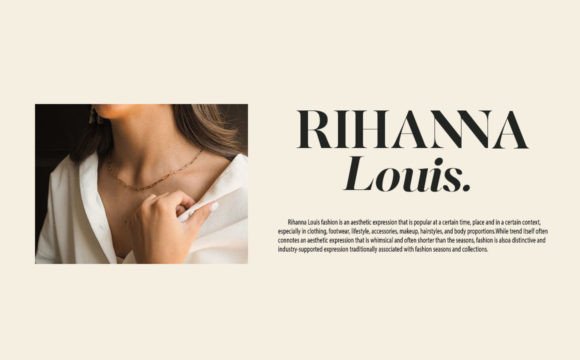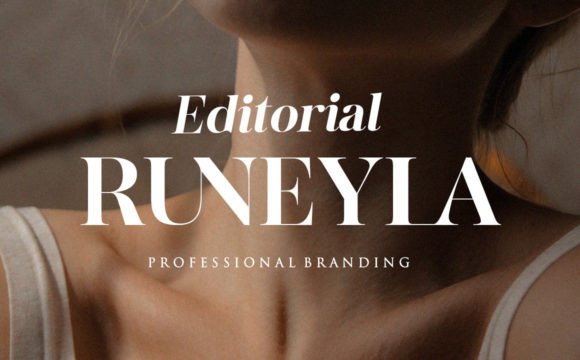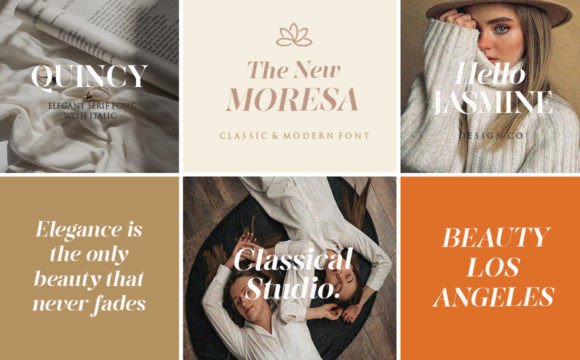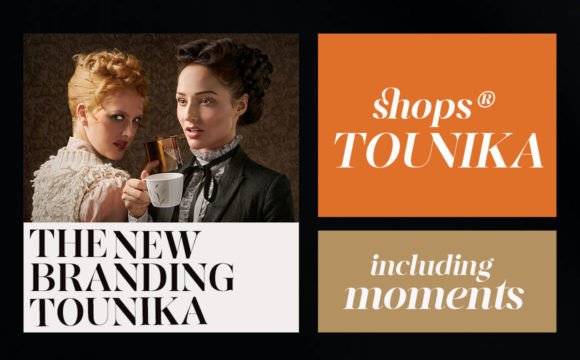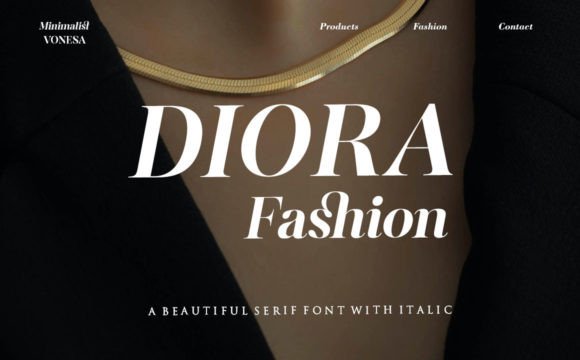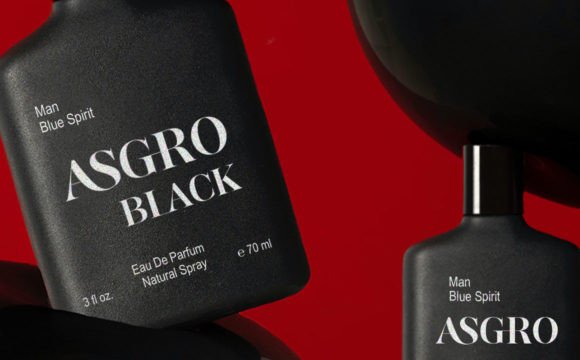
Introduction to Minimalist Vonesa Font
As a designer, have you ever found yourself staring at a blank canvas, trying to bring your creative vision to life? The blank slate can be intimidating, but sometimes it’s in those moments of uncertainty that we discover our most innovative ideas. For me, it’s always been about starting with a solid foundation – a well-chosen font that sets the tone for the entire project. And that’s exactly where the Minimalist Vonesa Font comes in.
This stunning serif font is more than just a design resource – it’s a key to unlocking the perfect balance of elegance and sophistication in your creative project. With its clean lines and subtle curves, Minimalist Vonesa Font is the perfect addition to any design that requires a touch of high quality and refinement.
Not only does Minimalist Vonesa Font exude class and style, but it’s also incredibly versatile – perfect for projects that require a transparent background or a bold statement. And the best part? It’s available for free download, making it an invaluable resource for designers of all levels.
Key Features of Minimalist Vonesa Font
- High-quality font with a transparent background, allowing for seamless integration with various design elements.
- Font size: 300 DPI, ensuring crisp and clear readability at various resolutions.
- Unique minimalist design aesthetic, perfect for modern and sleek creative projects.
- Includes a comprehensive character set, including uppercase and lowercase letters, numbers, and punctuation marks.
- Perfect for use in logos, typography-based designs, and other creative projects where a clean and simple font is desired.
Honest Review: Minimalist Vonesa Font
As a designer, I’ve had the chance to work with a wide variety of fonts, but the Minimalist Vonesa Font really caught my eye. I downloaded it for free and was immediately impressed by its clean and elegant design.
- ✨ Highly legible: The font is incredibly easy to read, making it perfect for any creative project where text is a priority.
- ✨ Versatile: The Minimalist Vonesa Font can be used for a wide range of applications, from titles and headings to body text and even logos.
- ✨ High quality: The font is incredibly crisp and clear, even when used on a transparent background.
- ⚠️ Limited character set: While the font is perfect for most English-based projects, the character set is somewhat limited for non-English languages.
- ⚠️ Not ideal for bold text: While the font is great for body text, it can become difficult to read when used for bold or large text.
Overall, I’m really impressed with the Minimalist Vonesa Font. It’s a fantastic design resource that’s perfect for anyone looking for a clean and elegant font for their creative project.
The Minimalist Vonesa Font is ideal for use in a variety of creative projects, including business cards, brochures, and social media graphics. Its clean and modern design makes it perfect for designers who want to create a professional and eye-catching look.